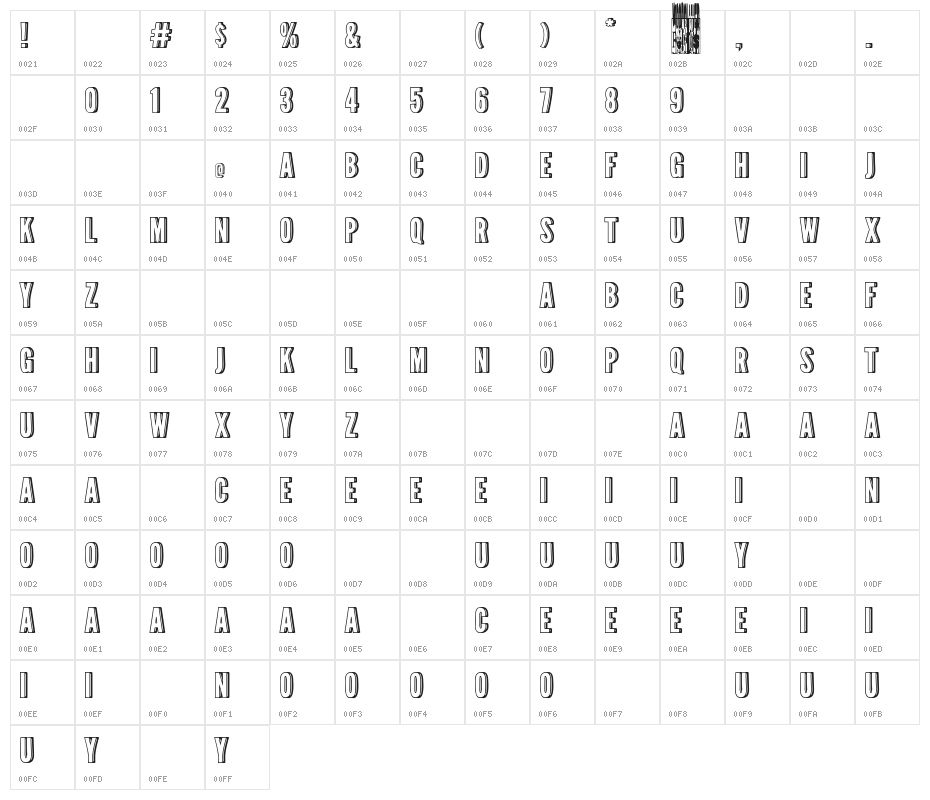
El Hijo del Butanero Font
El Hijo del Butanero Description
Bold, uppercase sans-serif font with a thick outline and hollow interior, featuring geometric shapes and uniform stroke widths, giving it a strong and impactful appearance.
Overall StyleDecorative, Modern
Use CaseHeadlines, Posters, Logos, Signage
Proposed ProjectsPosters, signage, headlines, event flyers, branding, merchandise.